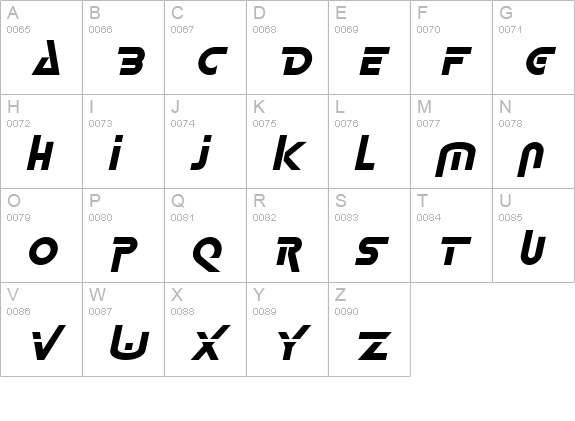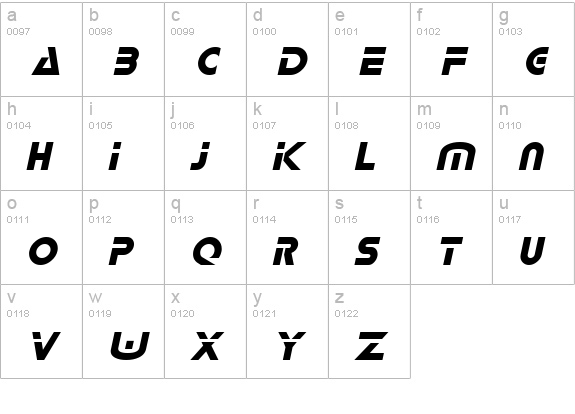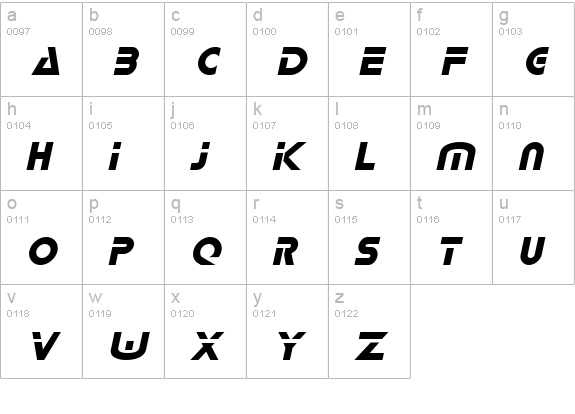
Logash Italic Font Details
Logash Italic is a distinctive, italic variant in the Logash typeface family \xE2\x80\x94 well suited to design and typography projects.
Logash Italic font is a sleek and elegant typeface that exudes sophistication and modernity. Its stylish and flowing italic design adds a touch of flair to any project, making it perfect for use in creative and professional settings alike. The distinctive curves and unique letterforms of Logash Italic make it stand out from the crowd, giving your designs a polished and refined look. What's more, Logash Italic font is available for free download at FontsMarket.com, making it easily accessible to anyone looking to elevate their typography game without breaking the bank. Whether you're working on a branding project, creating eye-catching posters, or designing stunning invitations, Logash Italic font is sure to make a lasting impression. Download it today and add a touch of elegance to your designs.